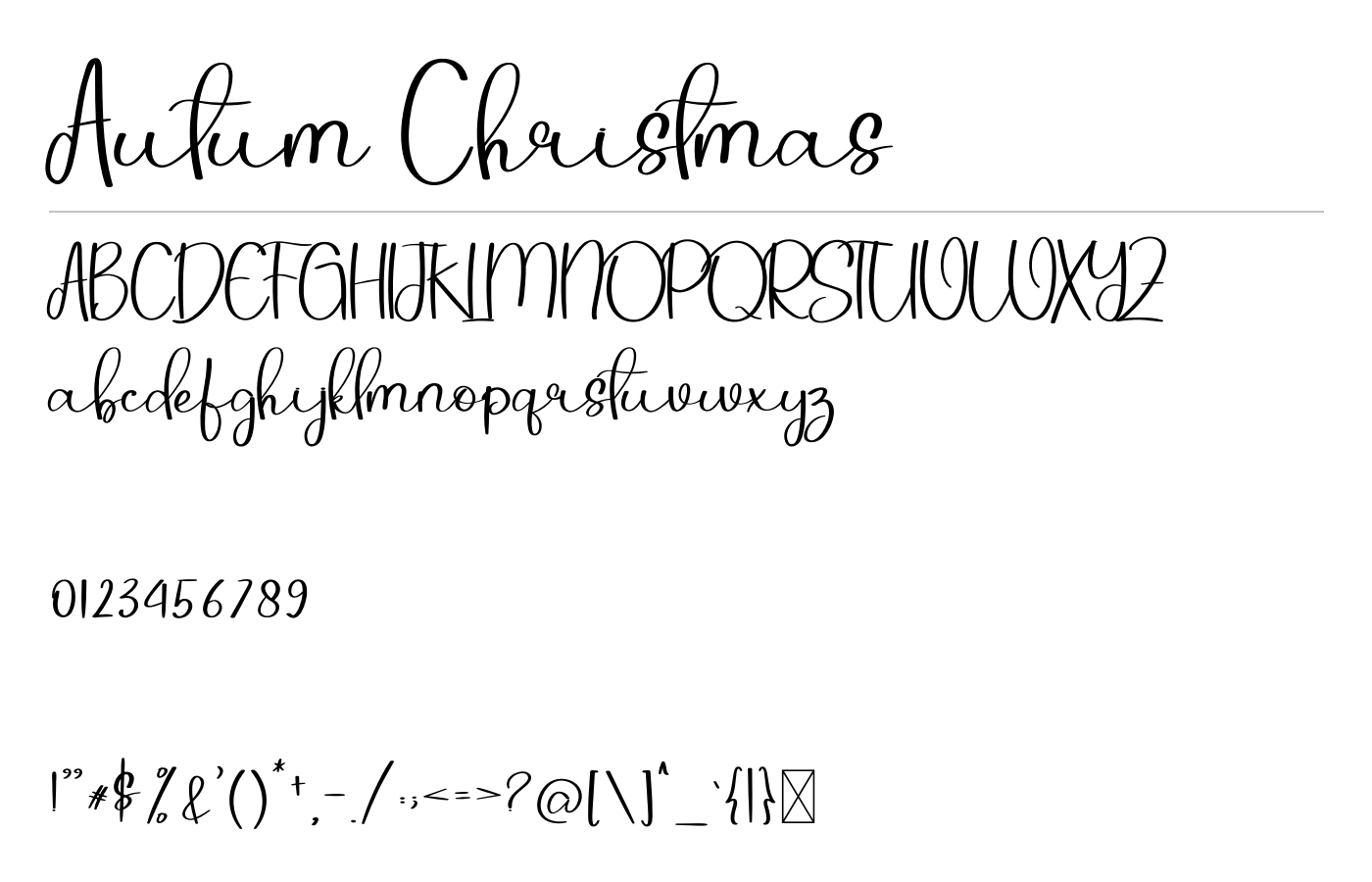
Autum Christmas is a delicate handwritten script font featuring tall, slender letterforms with playful loops and smooth curves that evoke a warm, festive feel. Its light weight and elegant flow make it perfect for holiday-themed designs, invitations, and branding that aim for a charming, cozy, and approachable aesthetic. This font works beautifully in decorative headlines and logos where a personal, cheerful touch is desired.
Autum Christmas Font
About Autum Christmas Font